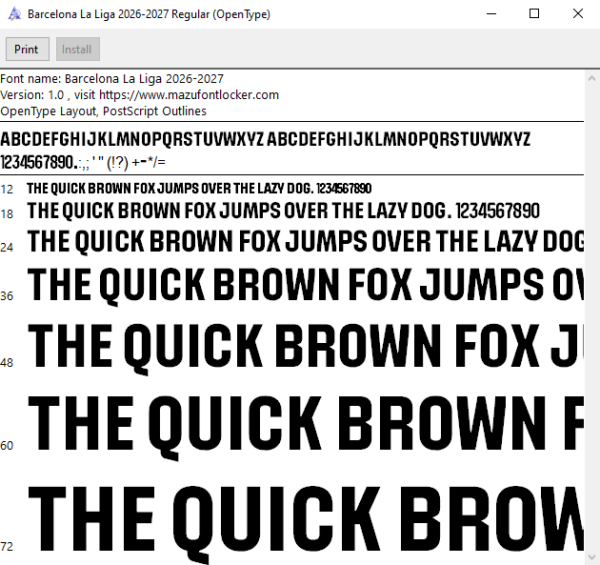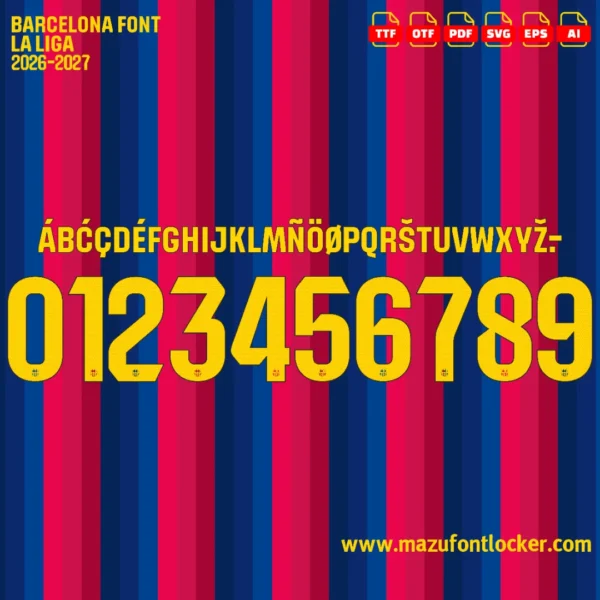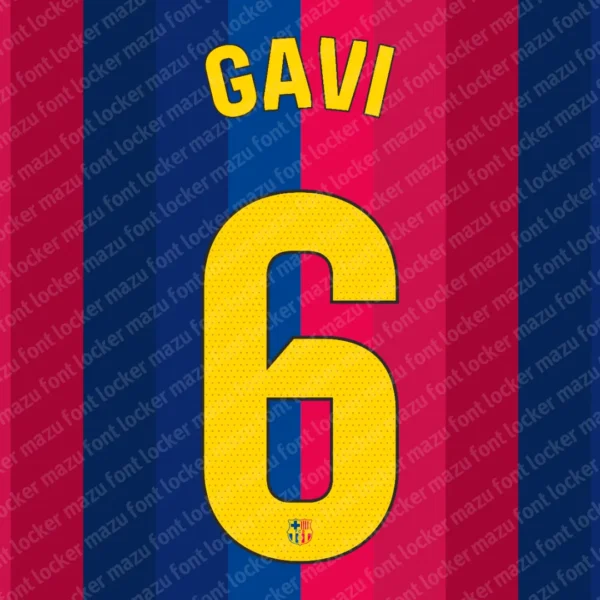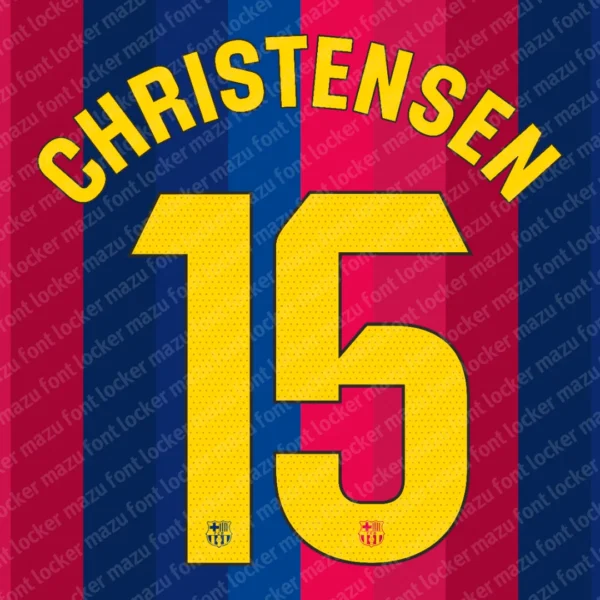
Barcelona La Liga 2026-2027 Font Vector – Stunning Blaugrana Champions Typeface
This premium font faithfully recreates the official La Liga match lettering worn by FC Barcelona during the 2026-2027 season — delivering authentic Camp Nou heritage, iconic Catalan football tradition, championship ambition, breathtaking attacking style, world-class technical excellence, fearless winning mentality, passionate Culers support, and the unmistakable blue-and-garnet identity that continues to make Barcelona one of the most admired clubs in world football.
Barcelona La Liga 2026-2027 Font Vector – Stunning Blaugrana League Typeface
The Barcelona La Liga 2026-2027 Font Vector is a premium typeface that accurately recreates the official La Liga match lettering worn by FC Barcelona during the 2026-2027 season. This high-quality vector font kit faithfully reproduces the official league font used on Barcelona jerseys throughout the domestic campaign, delivering the clean, modern typography recognized across Spain’s top division. Unlike the club-exclusive cup font, this version represents the official La Liga lettering seen every weekend in league competition.
Designed for professional designers, football enthusiasts, jersey collectors, and passionate Barça supporters, the Barcelona La Liga 2026-2027 Font Vector delivers exceptional authenticity for creating realistic jersey mockups, football merchandise, social media graphics, match posters, and custom fan artwork. It perfectly complements Barcelona’s legendary Blaugrana identity while maintaining the official La Liga appearance.
This font stands out thanks to its precise vector construction and authentic league styling. Every character has been carefully recreated to match the official shirt lettering used by FC Barcelona during La Liga matches throughout the 2026-2027 season. Whether you’re producing realistic kit templates or creating eye-catching football content, the Barcelona La Liga 2026-2027 Font Vector delivers a genuine professional appearance.
The lettering featured in the Barcelona La Liga 2026-2027 Font Vector showcases the official La Liga typeface with bold geometric forms, clean lines, and outstanding readability. Designed specifically for Spain’s top-flight competition, the font balances modern aesthetics with excellent on-pitch visibility.
The numerals feature sharp edges, balanced proportions, and consistent spacing that ensure maximum visibility during league matches. Built entirely as scalable vectors, every number remains crisp for jersey customization, digital graphics, posters, and large-format printing.
• Complete uppercase A–Z alphabet and numbers 0–9 in authentic Barcelona La Liga 2026-2027 style
• Includes authentic crest glyph placement beneath player numbers
Barcelona 2026-2027 La Liga Season
The 2026-2027 season marks another exciting chapter for FC Barcelona as the club competes for domestic and European honours. While Barcelona introduced the exclusive FC Barcelona Modernista typeface for UEFA Champions League, Copa del Rey, and Supercopa fixtures, La Liga regulations require clubs to use the league’s official shirt font during domestic league matches. This font package accurately recreates the official La Liga lettering worn by Barcelona throughout the league campaign. The club continues to showcase its iconic Blaugrana colours while competing at the highest level of Spanish football. :contentReference[oaicite:0]{index=0}
Competing in La Liga, Copa del Rey, Supercopa de España, and UEFA Champions League, Barcelona continues its tradition of combining world-class talent with attacking football while pursuing major trophies both in Spain and across Europe.
The Barcelona La Liga 2026-2027 Font Vector is an independently designed typeface package inspired by the official La Liga shirt lettering worn by FC Barcelona during the 2026-2027 season. It has been carefully recreated for football enthusiasts, graphic designers, collectors, and creators producing custom jersey concepts, football artwork, and fan-made projects.